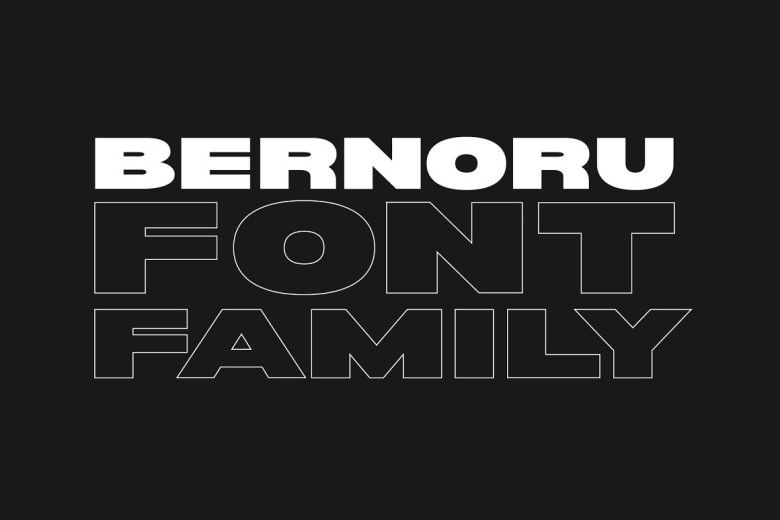
Bernoru Font
Bernoru offers a bold and eye-catching font ideal for headlines, posters and branding applications. As this font continues to develop with new features and weights to be added – currently 6 widths have been made available – please view its roadmap for details regarding future features.
Bernoru Display Font